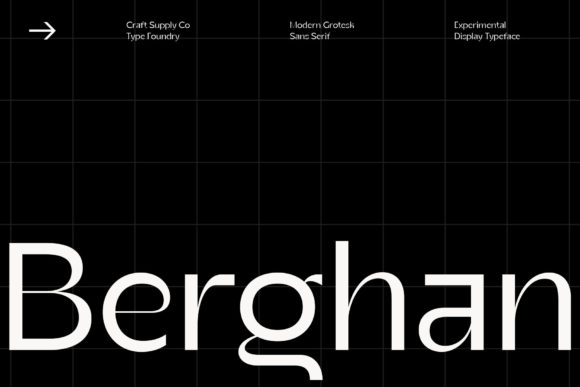
Behold Berghan Font, a modern and cool sans serif font that exudes sophistication and contemporary charm. With its bold and slender contrasts, Berghan adds a touch of elegance to any design. Unleash your creativity and let your projects come alive with this remarkable typeface.
At craftsupplyco, we meticulously crafted Berghan to cater to the needs of discerning designers seeking a font that exudes both style and functionality. Its versatile nature makes it suitable for a wide range of design projects, from print materials to eye-catching display ads.
Picture this: your designs transformed into captivating masterpieces, attracting attention and leaving a lasting impression. Berghan's carefully balanced strokes add a touch of intrigue and depth to your creations, making them stand out from the crowd.
Don't settle for ordinary fonts that blend into the background. Embrace Berghan and witness the difference it makes. Your designs will radiate confidence and professionalism, leaving a lasting impact on your audience.